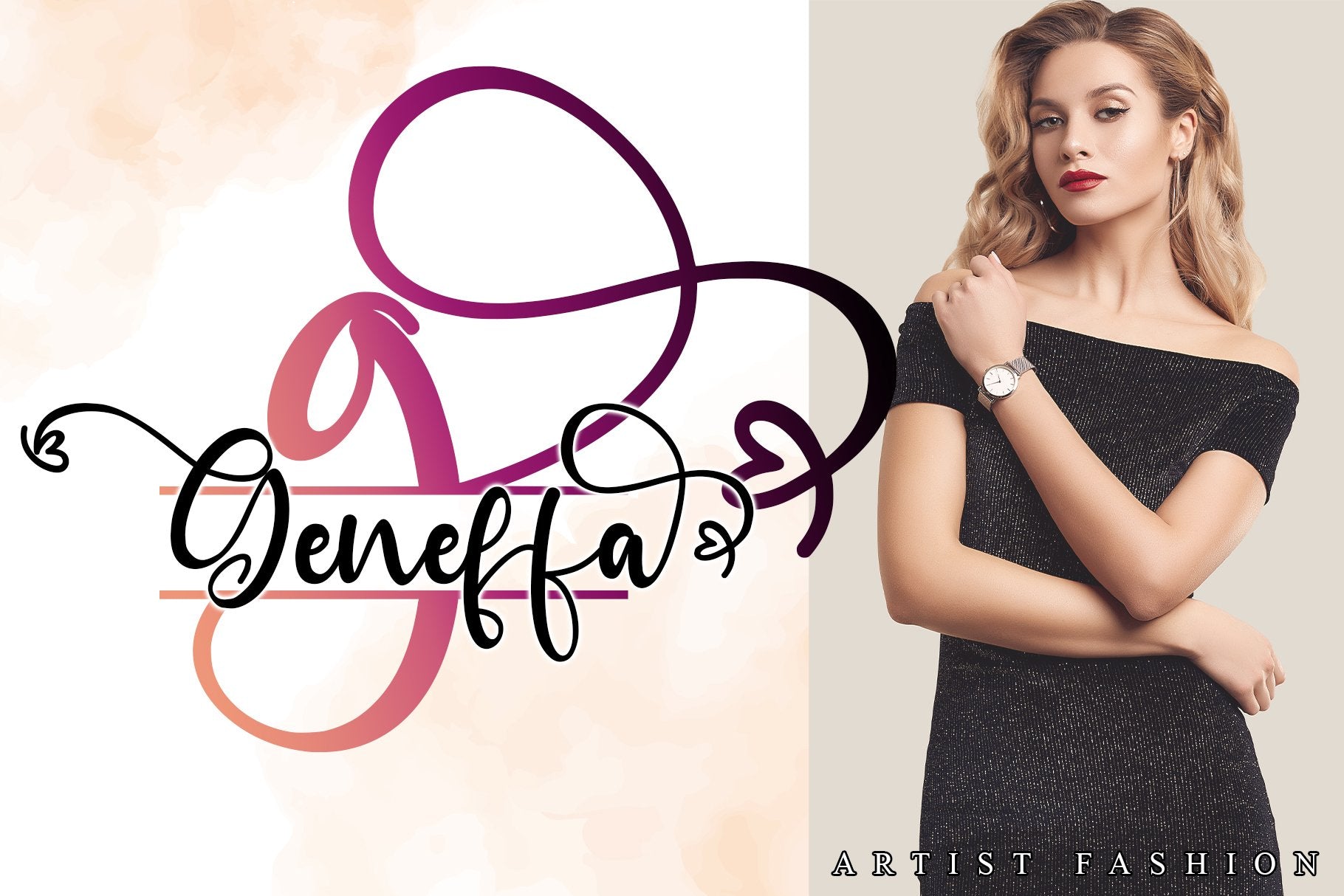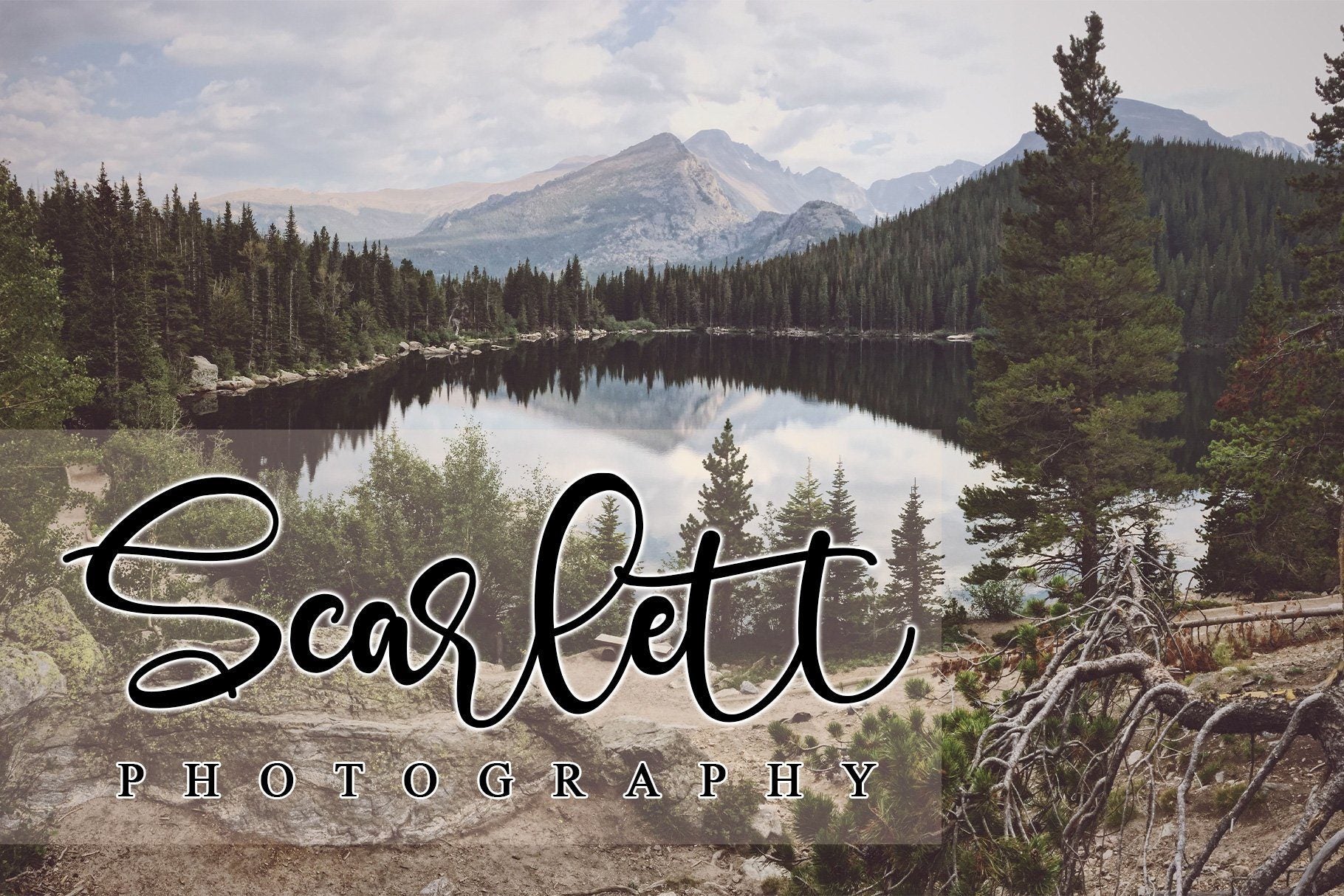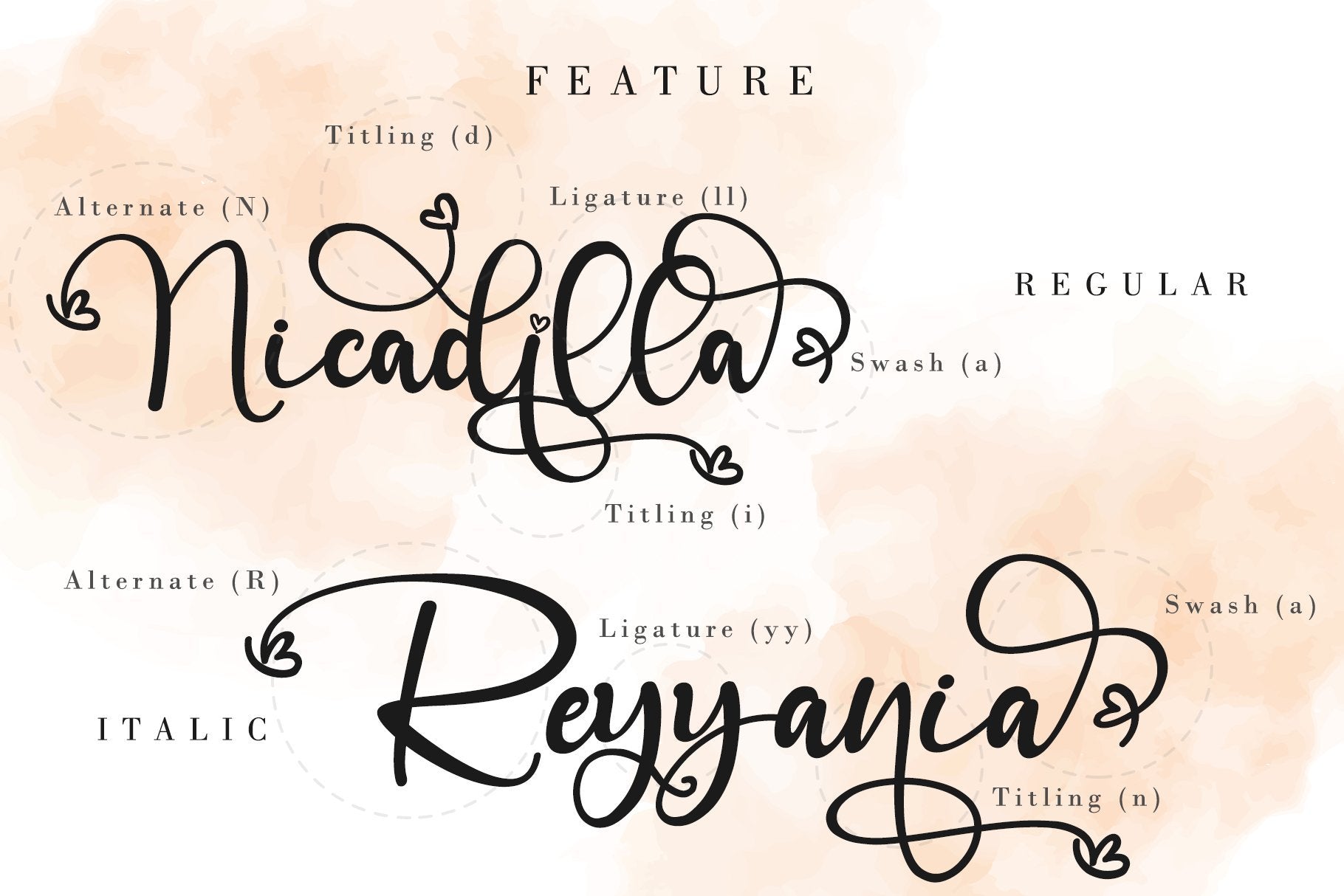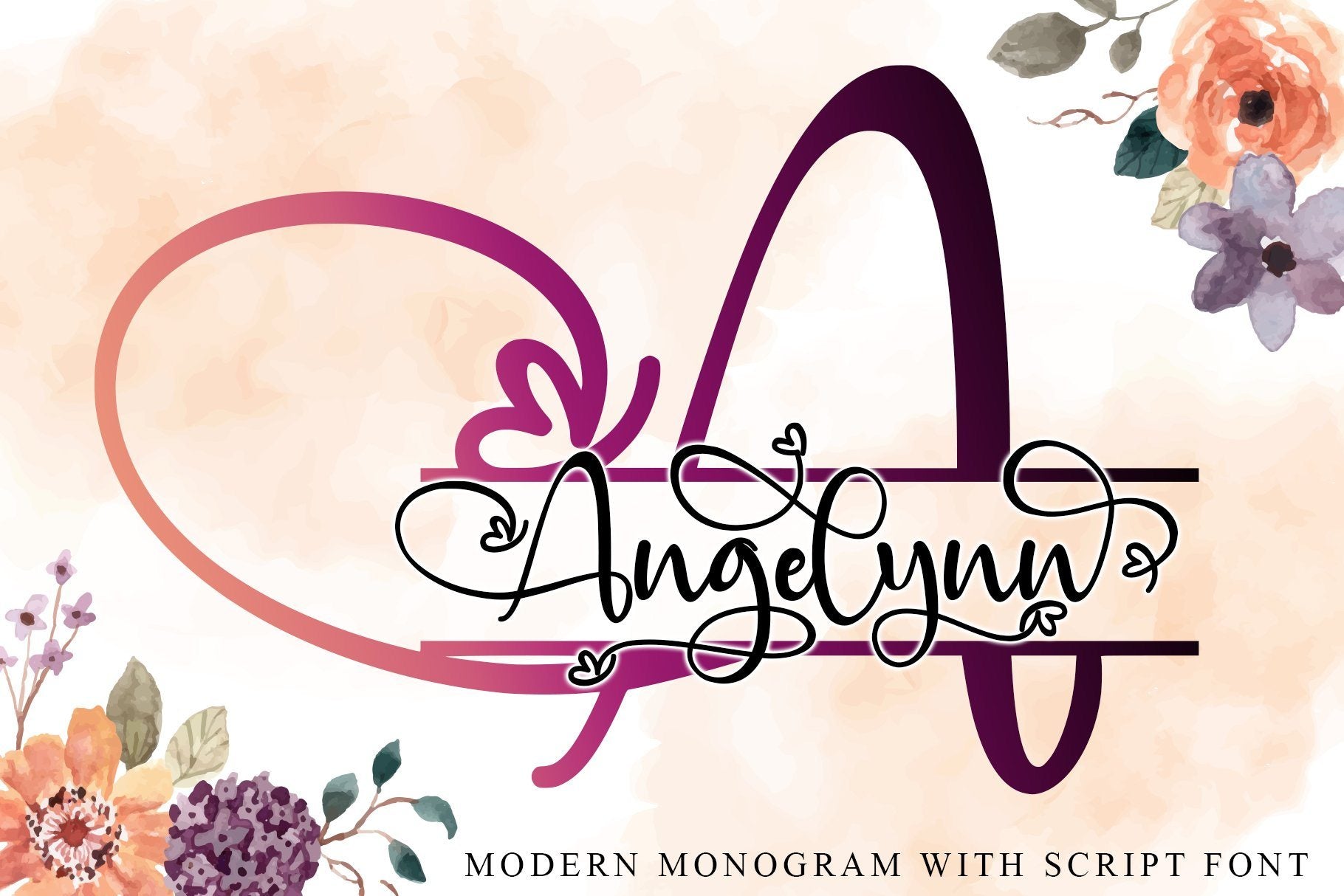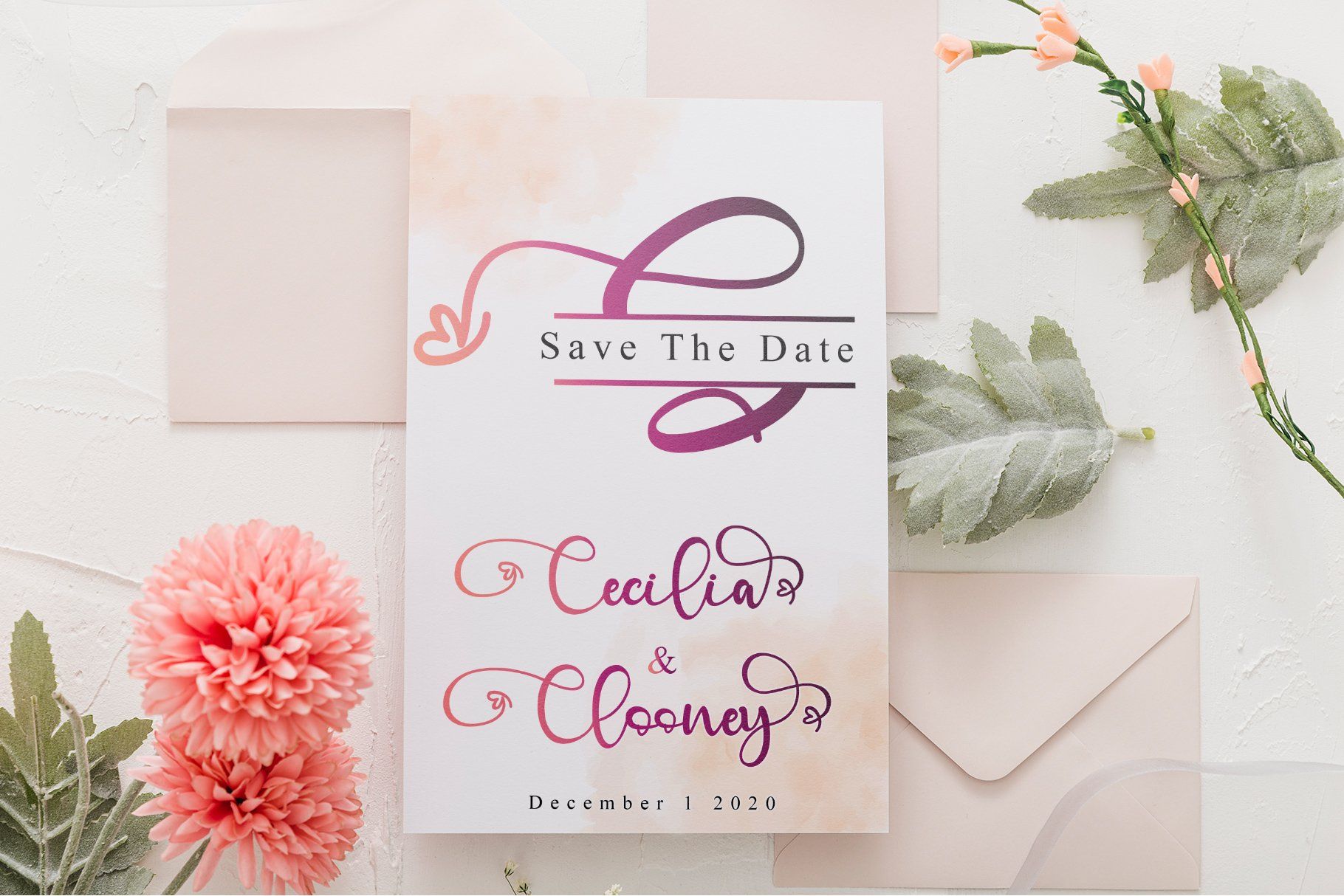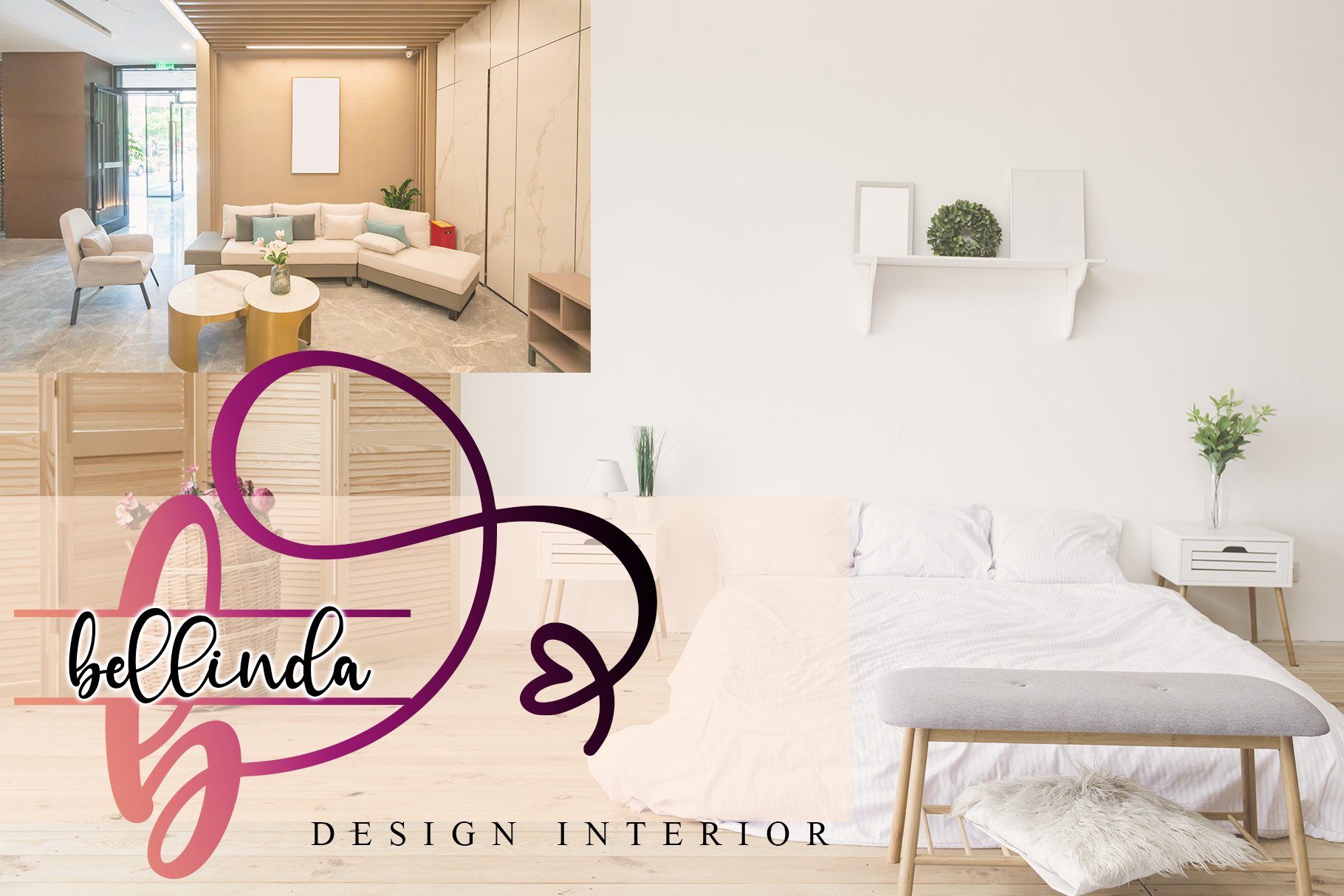
About Angelynn Monogram
Angelynn Monogram is a beautiful Calligraphy script with a Monogram font designed with an incredibly modern feel. This font is PUA encoded which means you can access all of the glyphs and swashes with ease! It features a varying baseline, smooth lines, gorgeous glyphs, and stunning alternates. Use this gorgeous and unique Calligraphy font to bring any DIY project to life! What’s Included : Angelynn Monogram (TTF, OTF, WOFF) Angelynn (TTF, OTF, WOFF) Angelynn Italic (TTF, OTF, WOFF) Works both on Mac & PC Simple installations Support silhouette Many features: Alternate, Titling, Swash, and Ligature Accessible in the Adobe Illustrator, Adobe Photoshop, Adobe InDesign, CorelDraw, even work on Microsoft Word. Support multilingual; ä ö ü Ä Ö Ü ß ¿ ¡ To access the alternate glyphs, you need a program that supports OpenType features such as Adobe Illustrator CS, Adobe Photoshop CC, Adobe Indesign, and CorelDraw. More information about how to access alternate glyphs, check out this link ( http://goo.gl/ZT7PqK ) This font is PUA encoded which means you can access all of the playful glyphs and swashes with ease! It also features a wealth of special features including alternate glyphs and ligatures. To stay up to date for my latest job, follow me and let’s be friends because there will be many promos. Our other products: BESTSELLER WELLDONE MILEADILA BEAUTIFUL KISSES ANGELIN GAMOS HERTINA JENNIE ANTIKA AURORA BLACK PINK SIGNATURE California Street BESTOWENS FAMILY